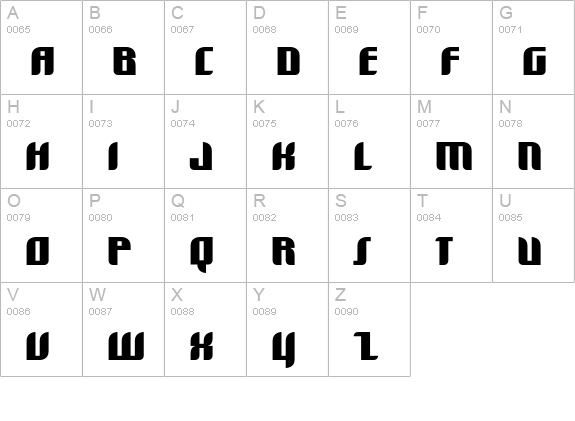
Dimentia-Medium Font Details
Dimentia-Medium is a balanced, medium-weight variant in the Dimentia typeface family \xE2\x80\x94 well suited to sub-headlines, navigation, and balanced editorial work.